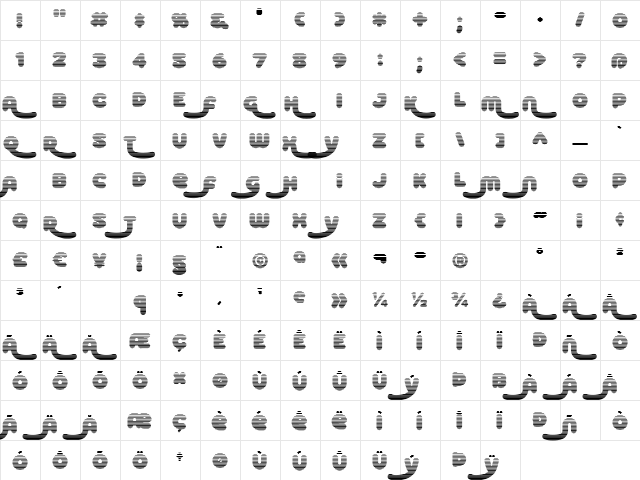
Roller Baby BV Alt Gradient Regular
Design Context for Roller Baby BV Alt Gradient Typeface
Roller Baby BV Alt Gradient is a composed and adaptable typeface that performs quietly and consistently across a wide range of design contexts.